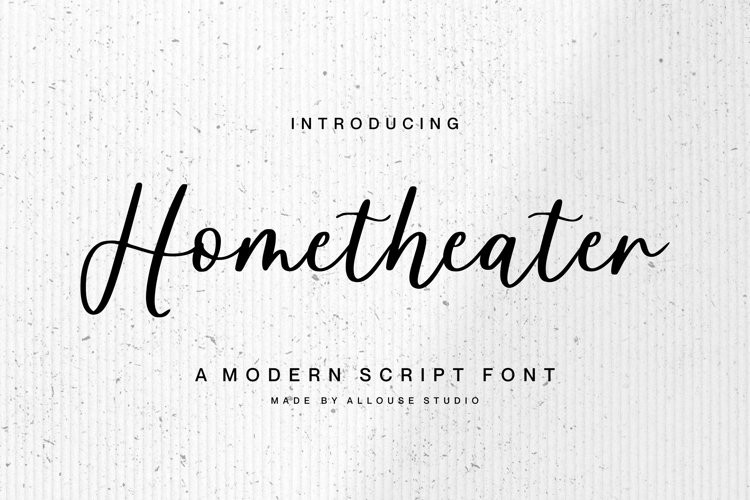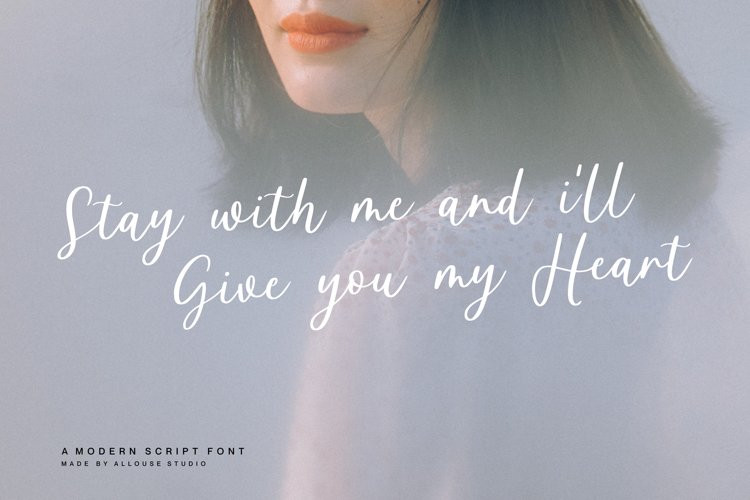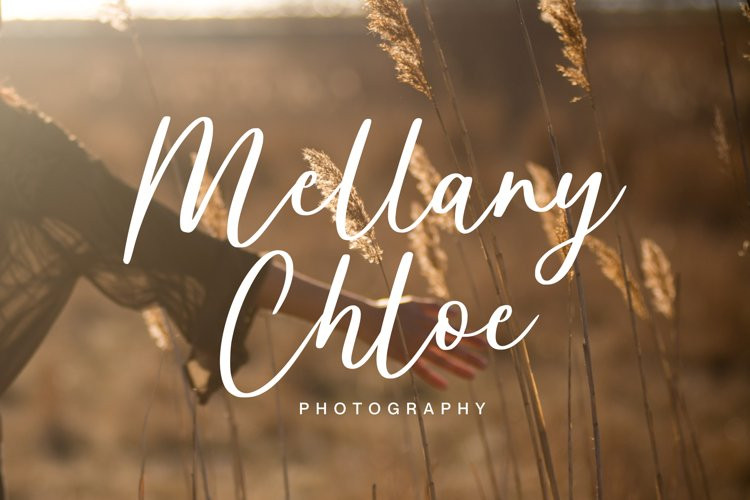
Hometheater Font
Hometheater FontHometheater is A Modern Script Font
Hometheater is perfect for product packaging, branding project, megazine, social media, wedding, or just used to express words above the background.